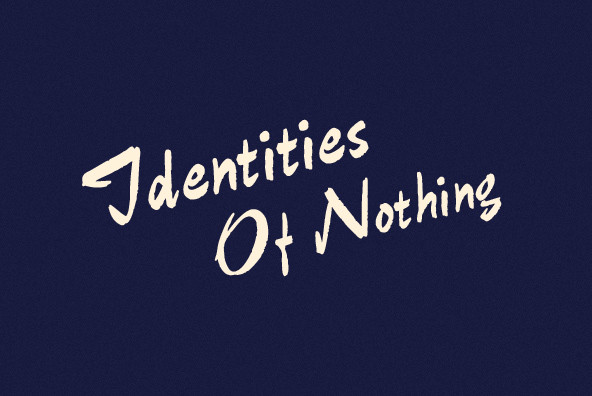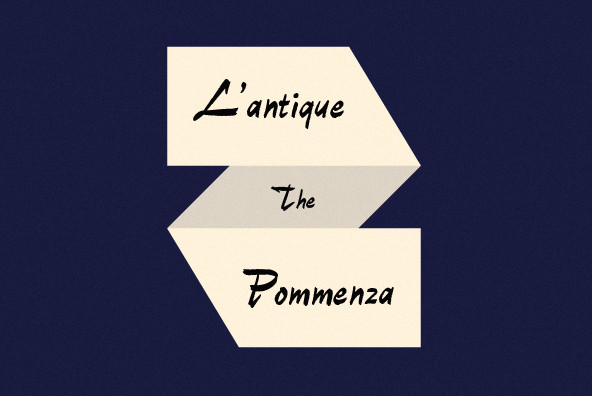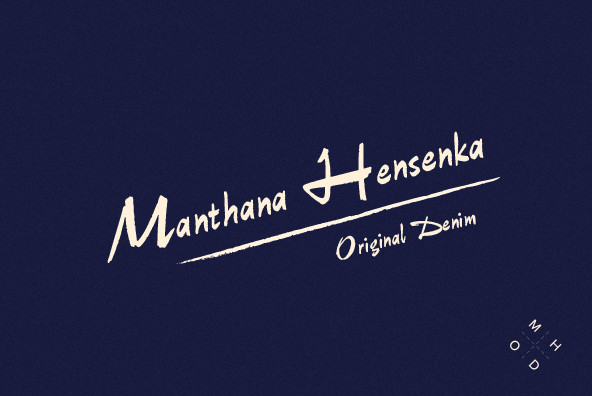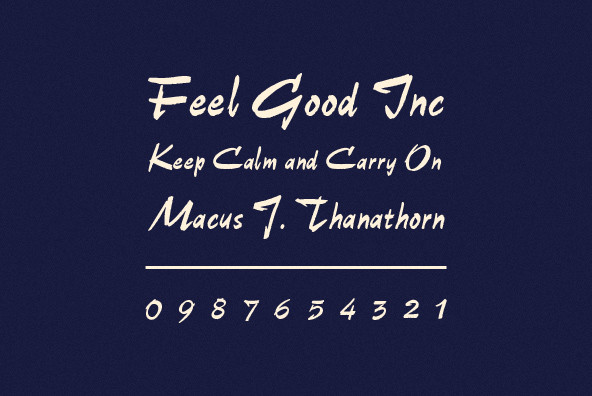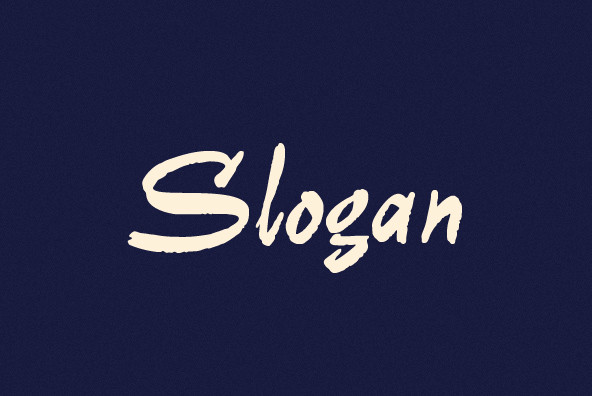
P22 Slogan Font
P22 Slogan is a non-connecting script font that captures the essence of the lettering used in 1950s European advertising. Bold strokes of this brush-drawn face make this design a great choice for both retro design and contemporary work. The font is based on the 1957 design “Slogan” by Aldo Novarese for the Italian Nebiolo Type Foundry. At the time of its original release, the font was touted for “striking publicity work.” This new digitization accurately reproduces the outlines of the original not found in previous digital versions of this design.